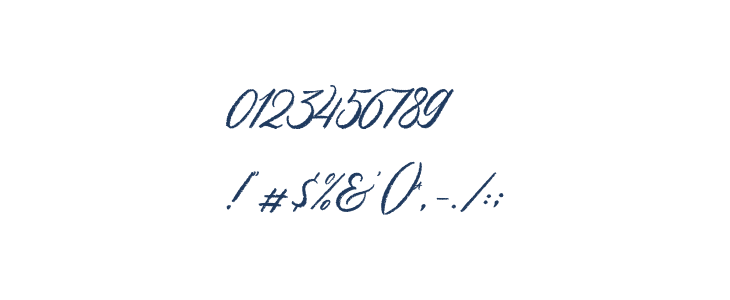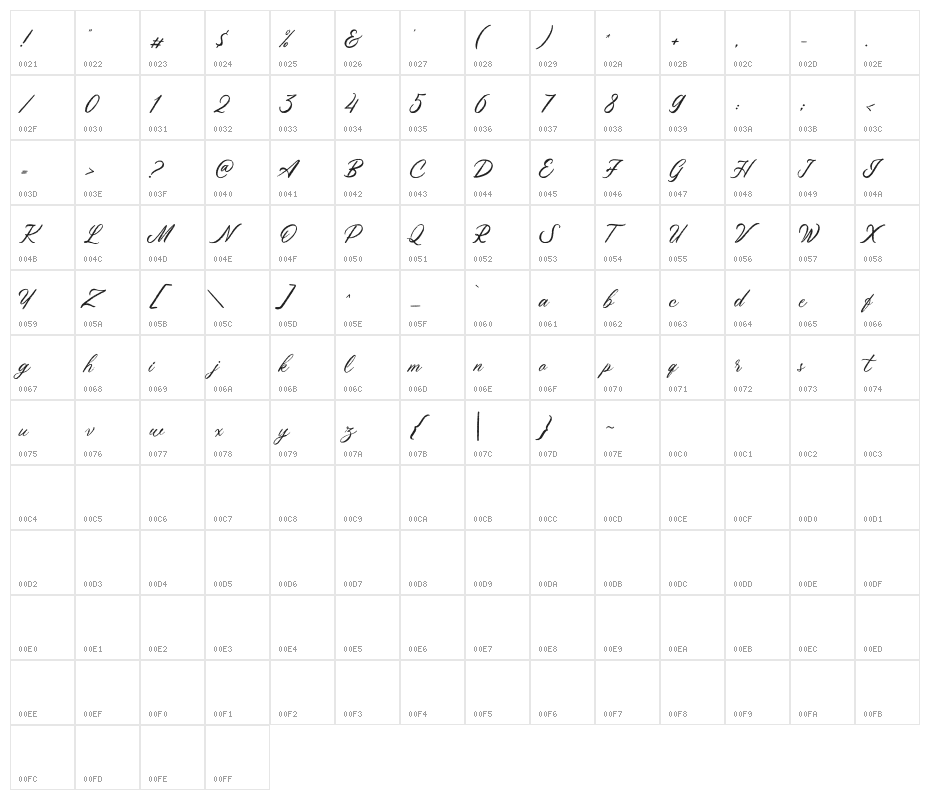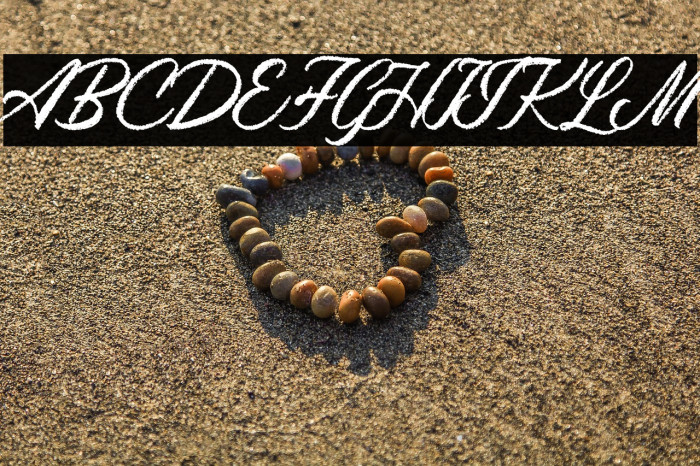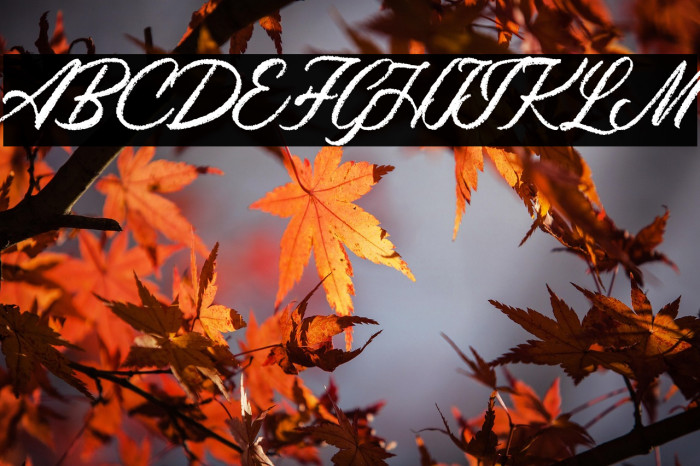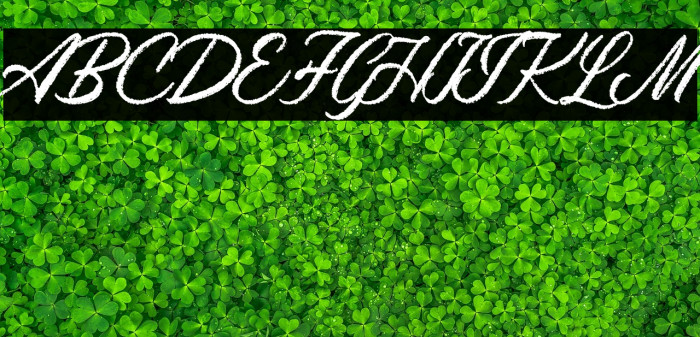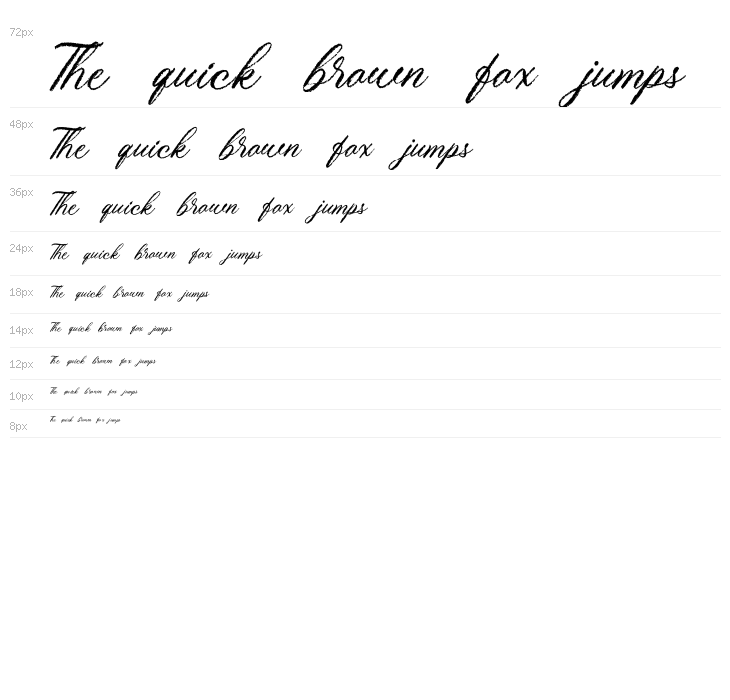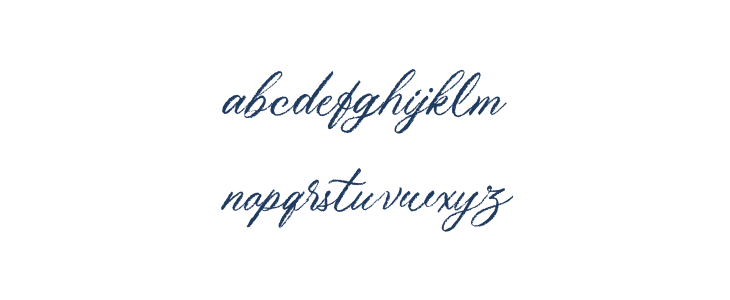
MaryathaDemo-Regular Font
MaryathaDemo-Regular Description
This font features an elegant and flowing script style, characterized by its smooth, cursive letterforms that mimic the fluidity of handwriting. The uppercase letters are bold and sweeping, with dramatic flourishes that add a sense of sophistication and grace. The lowercase letters maintain a consistent slant and are intricately connected, enhancing the overall cohesiveness of the text. Numbers and special characters are designed to match the ornate style, ensuring uniformity across all elements. The font's design is both classic and timeless, making it suitable for a variety of formal and decorative applications.